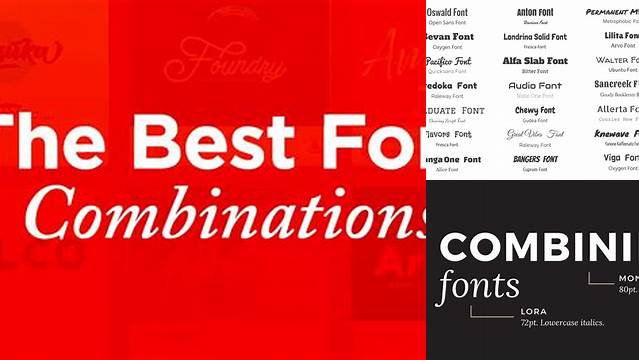
Best Font Combinations For PowerPoint: Design Guide
Creating killer presentations isn't just about the content; it's also about how you present it! And guess what? Fonts play a HUGE role in that. Think of your PowerPoint fonts combinations as the clothes your message wears. If they clash or are just plain boring, people might tune out. But, if you nail the perfect pairing, your slides will not only look professional but also keep your audience hooked. So, let's dive into the awesome world of PowerPoint font combinations and make your presentations shine! We're going to break down everything you need to know, from why font pairing matters to some killer combos you can use right away. Ready? Let's get started, guys!
Why Font Combinations Matter in PowerPoint
Okay, so why sweat over font combinations? Well, imagine reading a book where all the words are in the same font, same size, and same weight. Pretty monotonous, right? That's what a presentation with poor font choices feels like. The right font combinations create visual hierarchy, guide the viewer's eye, and reinforce your message. Using different fonts for headings, subheadings, and body text helps to break up the information and make it easier to digest. Plus, it adds a touch of personality and professionalism to your slides. When you use PowerPoint fonts combinations effectively, you're not just making your slides look good; you're making your message more impactful. Think of it as the secret sauce that elevates your presentation from good to amazing. It's about creating a cohesive and engaging experience for your audience, ensuring they not only understand your message but also remember it. So, investing a little time in choosing the perfect font pairings is totally worth it!
Understanding Font Types: Serif, Sans-Serif, Script, and Display
Before we jump into specific combinations, let's get a handle on the different types of fonts out there. Understanding these categories will make choosing PowerPoint fonts combinations a whole lot easier. Think of it like knowing your ingredients before you start cooking – it helps you create a masterpiece! There are four main categories we'll focus on: Serif, Sans-Serif, Script, and Display. Each has its own personality and best use cases, so let’s break them down.
Serif Fonts: The Traditional Choice
Serif fonts are those classic-looking fonts with the little feet or strokes at the end of each letter. Think Times New Roman or Garamond. They're often perceived as traditional, formal, and readable, especially in print. When considering PowerPoint fonts combinations, Serif fonts can lend a sense of authority and sophistication to your slides. They're great for body text in print because the serifs help guide the eye across the page. In the digital world, they can still work well, but you need to make sure they're clear and legible on screen. Using a serif font in your heading can give it a classical feel and ground your design. A well-chosen serif font can bring a touch of timeless elegance to your presentation.
Sans-Serif Fonts: Modern and Clean
Sans-serif fonts, on the other hand, are the sleek, modern cousins of serif fonts. They don't have those little feet, giving them a cleaner, more minimalist look. Think Arial, Helvetica, or Calibri. Sans-serif fonts are often associated with modernity, simplicity, and readability, especially on screens. These are your go-to fonts for digital presentations and websites because they tend to display well on various devices and screen sizes. When it comes to PowerPoint fonts combinations, sans-serif fonts are a safe bet for headings and body text alike. Their clean lines make them easy to read, even from a distance. A strong sans-serif heading paired with a complementary font can make your slides look polished and professional.
Script Fonts: For a Touch of Elegance
Script fonts are those fancy, cursive-style fonts that look like handwriting. They can range from elegant and formal to playful and whimsical. Think Brush Script or Pacifico. Script fonts can add a touch of personality and flair to your slides, but they should be used sparingly. Overusing script fonts can make your presentation look cluttered and hard to read. When thinking about PowerPoint fonts combinations, script fonts are best reserved for headings or short phrases where you want to make a statement. They're not ideal for body text because they can be difficult to read in large blocks. A well-placed script font can add a touch of elegance and uniqueness to your design, but remember, less is more.
Display Fonts: The Attention-Grabbers
Display fonts are the wildcards of the font world. They're designed to grab attention and make a statement. Think impact or Cooper Black. Display fonts come in all shapes and sizes, from bold and chunky to quirky and artistic. These fonts are best used for headings and short titles where you want to make a big impact. They're not suitable for body text because their unique designs can make them hard to read in large blocks. When considering PowerPoint fonts combinations, display fonts can be a great way to add visual interest and personality to your slides, but use them wisely. A strong display font in your heading can really make your presentation pop, but pairing it with a more neutral font for the body text is crucial for readability.
Basic Rules for Effective Font Pairing in PowerPoint
Okay, now that we know our font types, let's talk about some basic rules for effective font pairing. Think of these as the golden guidelines for creating harmonious PowerPoint fonts combinations. Following these rules will help you create presentations that look professional, polished, and easy to read.
Contrast is Key: Pairing Serif with Sans-Serif
One of the most fundamental rules of font pairing is contrast. You want to choose fonts that are different enough to create visual interest but similar enough to feel cohesive. A classic and reliable approach is to pair a serif font with a sans-serif font. This combination provides a nice balance between tradition and modernity, formality and simplicity. The serif font can bring a touch of elegance and authority, while the sans-serif font can add a clean and modern feel. For instance, you might use a serif font like Times New Roman for your headings and a sans-serif font like Arial for your body text, or vice versa. This contrast makes it easier for your audience to distinguish between different levels of information on your slides, creating a clear visual hierarchy. Experiment with different weights and sizes to fine-tune the contrast and ensure readability. When using PowerPoint fonts combinations, think of contrast as your best friend!
Limit the Number of Fonts: Stick to Two or Three
Another crucial rule is to limit the number of fonts you use in your presentation. Sticking to two or three fonts is generally a safe bet. Too many fonts can make your slides look cluttered, chaotic, and unprofessional. It's like wearing too many accessories – you want to enhance your outfit, not overwhelm it. A good approach is to choose one font for your headings and another for your body text. If you want to add a third font, use it sparingly for emphasis or accents. For example, you might use a script font for a short quote or a display font for a title slide. By limiting your font choices, you create a sense of consistency and cohesion throughout your presentation. This helps your audience focus on your message rather than being distracted by the fonts themselves. With PowerPoint fonts combinations, remember that simplicity is key to elegance.
Consider Readability: Choose Fonts That Are Easy on the Eyes
Readability is paramount when choosing fonts for your PowerPoint presentation. After all, what's the point of having beautiful slides if your audience can't read them? Avoid fonts that are too decorative, condensed, or have overly intricate details. These can be difficult to read, especially from a distance. Opt for fonts that are clear, simple, and have good spacing between letters and lines. When it comes to PowerPoint fonts combinations, readability should always be your top priority. Consider the size of your audience and the size of the screen you'll be using. Test your slides on different devices and screen sizes to ensure that your fonts are legible. Choose font sizes that are large enough to be easily read from the back of the room. Remember, a clear and readable presentation is a compelling presentation. Your audience will appreciate the effort you put into making your slides accessible and easy to understand.
Think About Tone: Match Fonts to Your Presentation's Style
The fonts you choose should align with the tone and style of your presentation. Are you giving a formal business presentation? Or a casual, creative pitch? Your font choices should reflect the overall mood and message you want to convey. For a formal presentation, you might opt for classic and professional fonts like Times New Roman and Arial. For a more creative or informal presentation, you might choose fonts with a bit more personality, like Open Sans or Montserrat. However, always ensure that the fonts you choose are still readable and appropriate for your audience. When considering PowerPoint fonts combinations, think about the message your fonts are sending. Do they support your content and enhance your presentation's impact? Choosing fonts that match your presentation's style will help you create a cohesive and engaging experience for your audience. It's all about making the right impression and conveying your message effectively.
30 Killer PowerPoint Font Combinations You Can Use Today
Alright, guys, let's get to the good stuff! Here are 30 killer PowerPoint font combinations you can use today to make your presentations pop. We've got a mix of classic pairings and some more modern, creative combos to suit any style and topic. Get ready to take notes, because these are some game-changers!
1. Arial (Sans-Serif) and Times New Roman (Serif)
Arial and Times New Roman is a classic combination that’s always a safe bet. Arial is clean and modern, while Times New Roman brings a touch of tradition. Use Arial for headings and Times New Roman for body text, or vice versa. This PowerPoint fonts combinations pairing is super versatile and works for just about any type of presentation. It's like the little black dress of font pairings – always stylish and appropriate. Arial's clarity makes it perfect for on-screen reading, while Times New Roman's serifs give it a formal, readable quality in longer text blocks. Together, they strike a balance between professionalism and approachability, making your content easy to digest and visually appealing. Whether you're presenting financial data, a marketing strategy, or an educational lecture, this combo ensures your message is clear and impactful. So, if you're ever in doubt, this classic duo is your go-to choice for reliable and effective PowerPoint fonts combinations.
2. Helvetica (Sans-Serif) and Garamond (Serif)
Helvetica and Garamond are another timeless pair that exudes sophistication. Helvetica is a clean, minimalist sans-serif, while Garamond is an elegant serif font. This combination works well for presentations that need a touch of class. Think high-end branding or academic lectures. Helvetica’s straightforward design ensures readability, while Garamond’s refined serifs add a touch of elegance and tradition. This PowerPoint fonts combinations pairing is perfect for conveying credibility and authority, making it a strong choice for business presentations or formal speeches. Garamond, in particular, has a timeless quality that makes it feel both classic and modern, ensuring your presentation looks polished and professional. Using Helvetica for headings and Garamond for body text creates a visual hierarchy that is both pleasing to the eye and easy to follow. This pairing truly elevates your presentation, making it stand out with its sophisticated aesthetic.
3. Open Sans (Sans-Serif) and Merriweather (Serif)
Open Sans and Merriweather are a modern and highly readable pairing. Open Sans is a friendly and neutral sans-serif, while Merriweather is a serif font designed for on-screen readability. This PowerPoint fonts combinations works great for presentations with a lot of text. It's like giving your audience a visual hug. Open Sans is known for its clean lines and open forms, making it incredibly easy to read even in smaller sizes. Merriweather, with its sturdy serifs and slightly condensed letterforms, is equally readable on screens, making it a fantastic choice for body text. Together, they create a comfortable and engaging reading experience, ensuring your audience can focus on your message without straining their eyes. This combination is particularly effective for presentations that involve data-heavy content, reports, or educational materials. Its modern yet approachable feel helps to keep your audience engaged and makes complex information more accessible. So, if readability is your top priority, Open Sans and Merriweather are a winning team.
4. Lato (Sans-Serif) and Roboto Slab (Serif)
Lato and Roboto Slab offer a clean and contemporary look. Lato is a sans-serif with a warm feel, while Roboto Slab is a modern slab serif with a geometric design. This PowerPoint fonts combinations is perfect for tech-related or creative presentations. It's like the cool kids' choice of font pairings. Lato’s open and friendly character pairs beautifully with Roboto Slab’s sturdy and modern appearance, creating a balanced and visually appealing aesthetic. Lato is known for its semi-rounded details, which add a touch of warmth and approachability, while Roboto Slab’s strong serifs and geometric structure give it a contemporary edge. This combination works exceptionally well for presentations that need to convey both innovation and reliability, making it a popular choice in the tech industry. Using Lato for headings and Roboto Slab for body text creates a clear visual distinction that enhances readability and keeps your audience engaged. If you’re looking for a modern and stylish look, Lato and Roboto Slab are the perfect pair.
5. Montserrat (Sans-Serif) and Lora (Serif)
Montserrat and Lora create an elegant and modern feel. Montserrat is a clean and geometric sans-serif, while Lora is a well-balanced serif with contemporary roots. This combination is ideal for presentations that need a touch of sophistication. It's like the font pairing for a high-end fashion show. Montserrat’s clean lines and modern feel pair beautifully with Lora’s elegant serifs, creating a sophisticated yet approachable aesthetic. Montserrat is known for its versatility and readability, making it an excellent choice for headings and subheadings. Lora, with its well-rounded serifs and refined character, is perfect for body text, ensuring a comfortable reading experience. This PowerPoint fonts combinations is particularly effective for presentations in fields such as design, art, and literature, where aesthetics are paramount. Using Montserrat for headings and Lora for body text creates a visual hierarchy that is both pleasing to the eye and easy to follow. If you’re aiming for a polished and elegant look, Montserrat and Lora are a match made in font heaven.
6. Raleway (Sans-Serif) and Playfair Display (Serif)
7. Oswald (Sans-Serif) and PT Serif (Serif)
8. Roboto (Sans-Serif) and Roboto Serif (Serif)
9. Ubuntu (Sans-Serif) and Arvo (Slab Serif)
10. Exo 2 (Sans-Serif) and Bitter (Slab Serif)
11. Cabin (Sans-Serif) and Crimson Text (Serif)
12. Nunito (Sans-Serif) and Georgia (Serif)
13. Source Sans Pro (Sans-Serif) and Source Serif Pro (Serif)
14. Poppins (Sans-Serif) and Libre Baskerville (Serif)
15. Inter (Sans-Serif) and Cardo (Serif)
16. Manrope (Sans-Serif) and Merriweather Sans (Sans-Serif)
17. Mulish (Sans-Serif) and Domine (Serif)
18. Rubik (Sans-Serif) and Rokkitt (Slab Serif)
19. Work Sans (Sans-Serif) and Oswald (Sans-Serif)
20. Barlow (Sans-Serif) and Montserrat (Sans-Serif)
21. Prompt (Sans-Serif) and Noto Serif (Serif)
22. Fjalla One (Sans-Serif) and Josefin Sans (Sans-Serif)
23. Heebo (Sans-Serif) and Amaranth (Sans-Serif)
24. Chivo (Sans-Serif) and Vollkorn (Serif)
25. Maven Pro (Sans-Serif) and Raleway (Sans-Serif)
26. Bebas Neue (Sans-Serif) and Montserrat (Sans-Serif)
27. Archivo Black (Sans-Serif) and Oswald (Sans-Serif)
28. Kanit (Sans-Serif) and Prompt (Sans-Serif)
29. Rajdhani (Sans-Serif) and Open Sans (Sans-Serif)
30. Anton (Sans-Serif) and Roboto (Sans-Serif)
Tools and Resources for Finding Great Font Combinations
Finding the perfect PowerPoint fonts combinations can feel like a daunting task, but don't worry, guys! There are tons of awesome tools and resources out there to help you. Think of these as your font-pairing sidekicks, ready to assist you in creating visually stunning presentations. From websites that suggest font pairings to software that lets you preview combinations, we've got you covered. Let's dive into some of the best resources to make your font-choosing journey a breeze.
1. FontPair.co
FontPair.co is a fantastic website dedicated to helping you find great font combinations. It's like a dating app for fonts! The site focuses on pairings from Google Fonts, making it super convenient to find fonts that are free and easy to use in your PowerPoint presentations. FontPair.co showcases different font pairings with clear examples, so you can see how they look in headings and body text. You can filter fonts by serif, sans-serif, and even display styles, making it easy to narrow down your choices based on your needs. The site also provides insights into the personality and best uses for each pairing, helping you choose fonts that match the tone of your presentation. Whether you're a design newbie or a seasoned pro, FontPair.co is an invaluable resource for discovering inspiring PowerPoint fonts combinations.
2. Canva Font Combinations
Canva is a popular graphic design platform that offers a wealth of resources for creating beautiful visuals, including a fantastic font combination tool. Think of it as a design playground where you can experiment with different fonts and see how they look together in real-time. Canva's font combination tool provides curated pairings that are both stylish and effective. You can browse through a wide range of options, from classic serif and sans-serif pairings to more creative and modern combinations. Each pairing comes with a visual preview, making it easy to see how the fonts will look in a design context. Canva also offers a plethora of templates and design resources, allowing you to implement your chosen font combinations in your presentations seamlessly. Whether you're creating slides from scratch or customizing a template, Canva's font combination tool is a powerful resource for achieving a polished and professional look.
3. Adobe Fonts
Adobe Fonts (formerly Typekit) is a subscription-based font library that offers a vast collection of high-quality fonts for all your design needs. It's like having a VIP pass to the font world. If you're an Adobe Creative Cloud subscriber, you already have access to this treasure trove of fonts. Adobe Fonts includes a wide range of serif, sans-serif, script, and display fonts, making it easy to find the perfect pairings for your PowerPoint presentations. The platform also offers font pairing suggestions and curated collections to help you discover new and exciting combinations. Adobe Fonts integrates seamlessly with Adobe Creative Cloud apps like Photoshop and Illustrator, allowing you to create stunning visuals for your presentations. Even if you don't use Adobe software, you can still explore Adobe Fonts and find inspiration for PowerPoint fonts combinations. The sheer variety and quality of fonts available make Adobe Fonts an invaluable resource for designers and presenters alike.
4. Google Fonts
Google Fonts is a free and open-source font library that offers a massive selection of fonts for web and print use. It's like the free library of the font world! This is a fantastic resource for PowerPoint fonts combinations because the fonts are not only free but also easy to use in your presentations. Google Fonts includes a wide range of font styles, from classic serifs and sans-serifs to more unique and decorative options. The website allows you to easily browse, filter, and preview fonts, making it simple to find the perfect pairings for your slides. You can also download the fonts and install them on your computer for use in PowerPoint. Google Fonts is a great starting point for anyone looking to elevate their presentations with beautiful and readable typography. Its accessibility and vast selection make it an indispensable tool for creating visually appealing PowerPoint fonts combinations.
5. Typewolf
Typewolf is a unique resource that showcases font combinations in real-world website designs. Think of it as a font style scout. This website curates examples of excellent typography from various websites, providing inspiration and practical insights into how fonts work together in context. Typewolf highlights the fonts used in each design, allowing you to easily identify pairings that you like. The site also offers font recommendations and insights into the design principles behind each combination. While Typewolf focuses on web design, the font pairings it showcases can be easily adapted for PowerPoint presentations. By seeing how fonts are used in professional designs, you can gain a better understanding of how to create effective and visually appealing PowerPoint fonts combinations. Typewolf is a valuable resource for anyone seeking inspiration and guidance in the world of typography.
Common Font Pairing Mistakes to Avoid
Alright, guys, let's talk about some common font pairing mistakes to avoid. We've covered the awesome combinations, but knowing what not to do is just as important. Think of this as our typography safety briefing. Steering clear of these pitfalls will help you create presentations that look polished, professional, and easy on the eyes. Let's make sure your font game is strong!
1. Using Fonts That Are Too Similar
One of the most common mistakes in font pairing is using fonts that are too similar. It's like wearing two shades of the same color – it just looks off. The key to effective font pairing is contrast. If your fonts are too alike, they won't create a clear visual hierarchy, and your presentation will look monotonous and uninspired. For example, pairing two sans-serif fonts with similar weights and styles can make it difficult for your audience to distinguish between headings and body text. The goal is to choose fonts that complement each other while still providing enough visual difference to guide the viewer's eye. Opt for a combination of serif and sans-serif fonts, or choose fonts with distinct weights, sizes, or styles. When it comes to PowerPoint fonts combinations, contrast is your friend, and similarity is the enemy!
2. Overusing Decorative or Script Fonts
Decorative or script fonts can add a touch of personality and flair to your presentation, but they should be used sparingly. Think of them as the statement jewelry of fonts – a little goes a long way. Overusing these fonts can make your slides look cluttered, hard to read, and unprofessional. Script fonts, in particular, can be difficult to read in large blocks of text. It's best to reserve decorative or script fonts for headings, short phrases, or accent elements where you want to make a statement. Pair them with a clean and readable font for body text to ensure your message is clear. Remember, readability is paramount, so prioritize fonts that are easy on the eyes. When considering PowerPoint fonts combinations, moderation is key. Use decorative fonts strategically and avoid overwhelming your audience with too much flair.
3. Ignoring Font Size and Weight
Font size and weight play a crucial role in creating effective PowerPoint fonts combinations. Think of them as the volume and emphasis in your typographic voice. Ignoring these elements can lead to a presentation that is difficult to read and lacks visual hierarchy. Your headings should always be larger and bolder than your body text to create a clear distinction. Using different font weights (e.g., bold, semibold, regular) can also help to emphasize key information and guide the viewer's eye. Make sure your font sizes are appropriate for your audience and the size of the screen you'll be using. Text that is too small or too large can be equally distracting. When it comes to PowerPoint fonts combinations, pay attention to the details of size and weight to create a visually balanced and readable presentation.
4. Using Too Many Fonts
We've said it before, and we'll say it again: using too many fonts is a big no-no. It's like mixing too many patterns in an outfit – it just looks chaotic. Sticking to two or three fonts is generally the best practice for creating a cohesive and professional look. Too many fonts can make your slides look cluttered, inconsistent, and overwhelming. Choose a primary font for your headings and a secondary font for your body text. If you want to add a third font, use it sparingly for emphasis or accent elements. By limiting your font choices, you create a sense of unity and clarity in your presentation. When it comes to PowerPoint fonts combinations, simplicity is key to elegance and effectiveness. So, resist the urge to experiment with too many fonts and stick to a well-chosen palette.
5. Neglecting Readability
Last but not least, neglecting readability is a cardinal sin in font pairing. It's like whispering your presentation – no one will hear you. No matter how beautiful your font combinations are, if they're not easy to read, your message will be lost. Choose fonts that are clear, simple, and have good spacing between letters and lines. Avoid fonts that are too condensed, decorative, or have overly intricate details. Consider the size of your audience and the screen you'll be using. Test your slides on different devices and screen sizes to ensure that your fonts are legible. Readability should always be your top priority when choosing fonts for your PowerPoint presentation. After all, a clear and readable presentation is a compelling presentation. When it comes to PowerPoint fonts combinations, never sacrifice readability for aesthetics.
Conclusion: Mastering PowerPoint Font Combinations for Stunning Presentations
So, guys, we've reached the end of our font-tastic journey! We've covered everything from the basics of font types to killer combinations and common mistakes to avoid. You're now equipped to be a font-pairing pro! Mastering PowerPoint fonts combinations is a crucial skill for creating presentations that not only look stunning but also effectively communicate your message. Remember, the right font choices can elevate your slides from good to amazing, keeping your audience engaged and making your content shine. Don't underestimate the power of typography – it's the unsung hero of presentation design. By following the guidelines and tips we've discussed, you can create presentations that are visually appealing, easy to read, and truly impactful. So, go forth and create font magic! Your audience will thank you for it. Happy presenting!